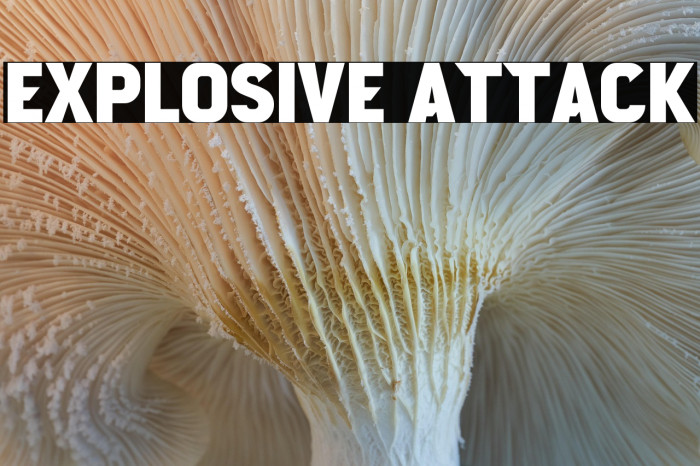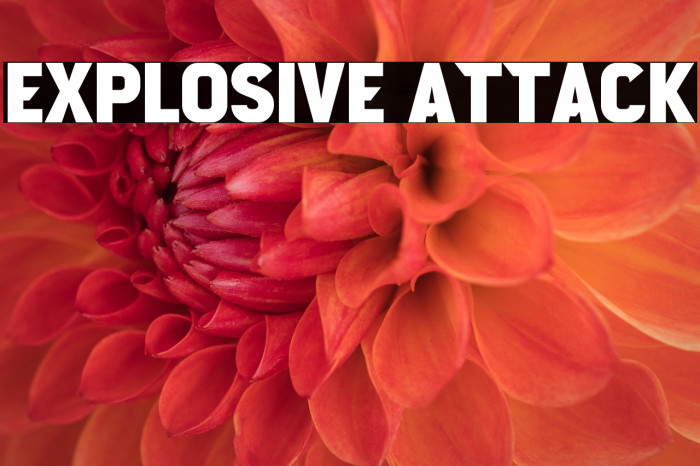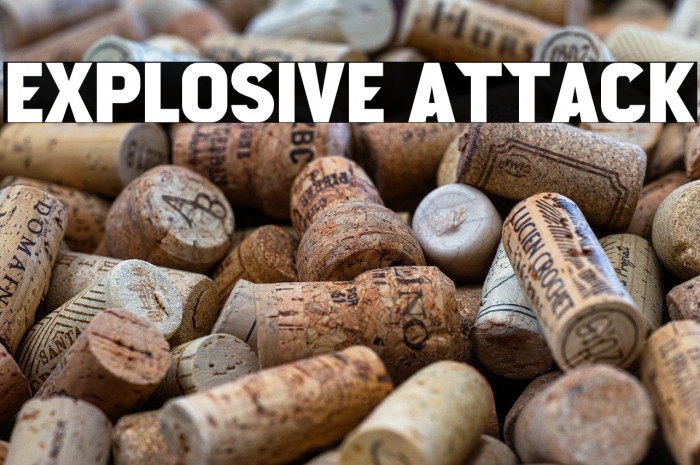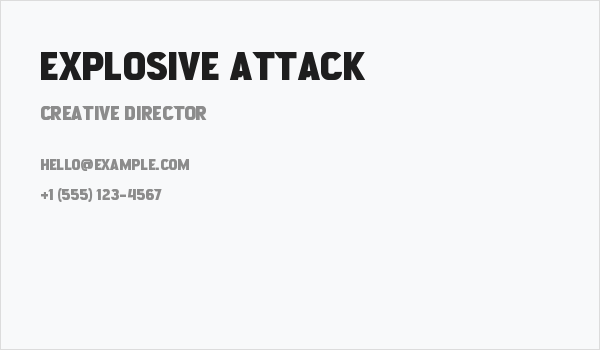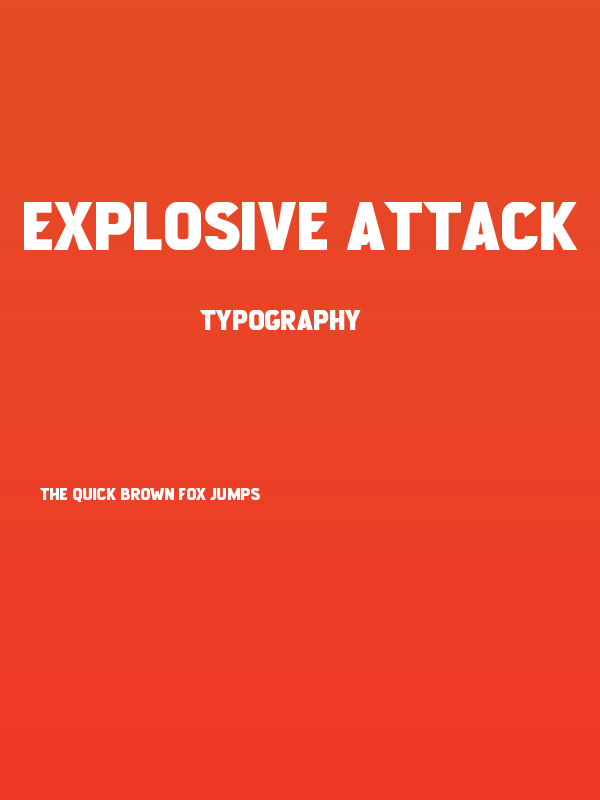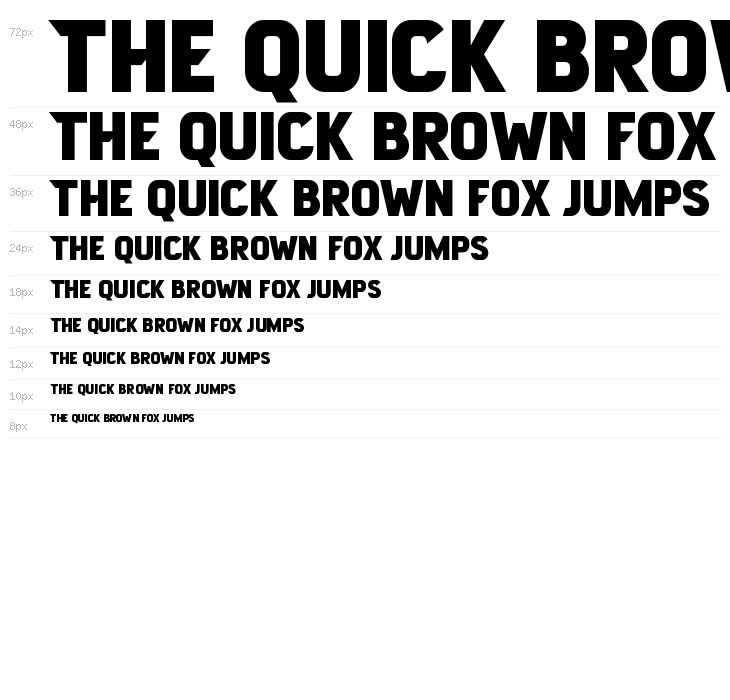
Explosive Attack Font
Explosive Attack Description
This font features bold, geometric letterforms with a strong, impactful presence. The characters are constructed with thick strokes and sharp angles, giving them a modern and assertive look. The uppercase and lowercase letters maintain a consistent height, contributing to a uniform appearance. The numerals are equally bold, ensuring readability and emphasis. Special characters are designed to match the robust style of the alphabet, making this font suitable for attention-grabbing designs. The overall aesthetic is clean and powerful, ideal for making a statement.
| Proposed Projects | Ideal for branding, posters, headlines, and any design requiring a strong visual impact. |